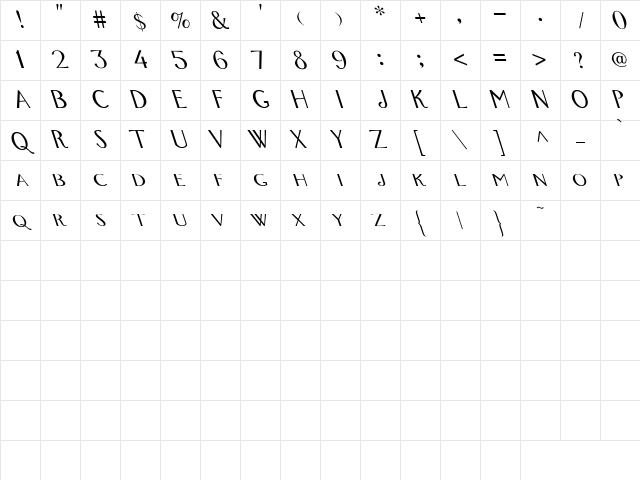
Complete Foxxy Trot to the Left Regular glyph index. Displaying only characters natively supported by Foxxy Trot to the Left Regular font.
Foxxy Trot to the Left is a composed and adaptable typeface that performs quietly and consistently across a wide range of design contexts.